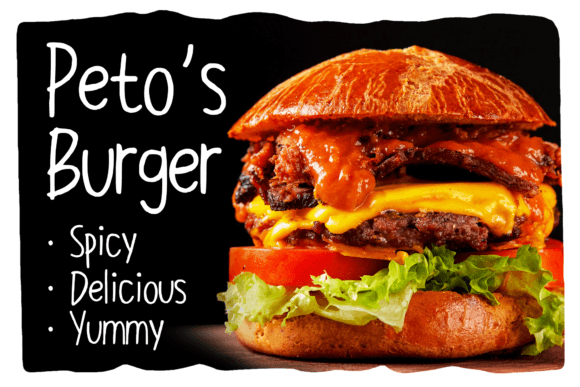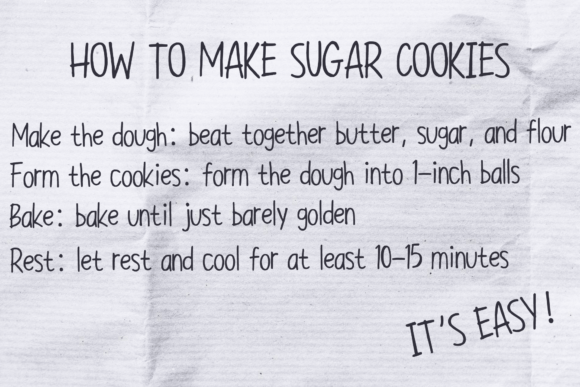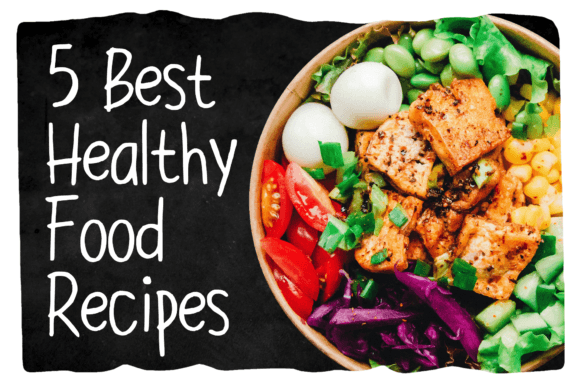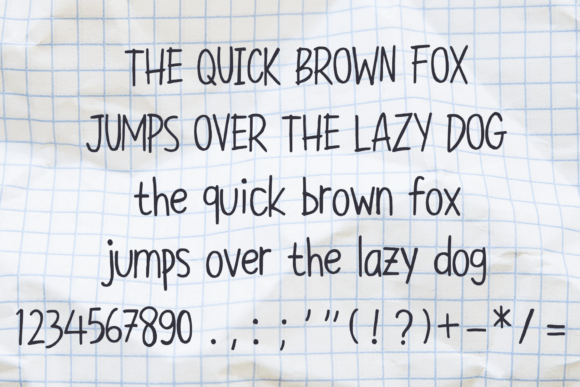
Introduction to Pencil Note Font
Remember that moment when you were brainstorming ideas for your next creative project and suddenly, a burst of inspiration struck? You grabbed a marker and started sketching out your vision, the lines flowing effortlessly onto the page. That’s the magic of creating with a personal touch, and it’s exactly what the Pencil Note Font brings to your digital designs.
As a designer, you’re always on the lookout for that special something that sets your work apart. The Pencil Note Font is a game-changer, offering a unique, handwritten style that’s perfect for adding a personal flair to your designs. With its versatility and high-quality aesthetic, this font is a valuable resource for any creative project, whether you’re working on a logo, magazine cover, or even a sticker.
Pencil Note Font
- Unique, handwritten design with a high-quality feel, ideal for creative projects and design resources.
Honest Review: Pencil Note Font
As a designer, I’m always on the lookout for high-quality design resources to enhance my creative projects. Recently, I came across the Pencil Note Font, and I was excited to give it a try.
First, the good stuff: I love the whimsical, hand-drawn feel of the Pencil Note Font. It’s perfect for adding a touch of personality to a design. The font is also highly customizable, with a range of styles and weights to choose from. The transparent background option is a nice touch, too – it makes it easy to layer the font over other design elements. ✨
Now, the not-so-good stuff: I did encounter some issues with the font’s consistency. At times, the lines and strokes seemed a bit uneven, which can be distracting. Additionally, the font may not be suitable for all types of projects – it’s definitely more suited to creative, casual designs rather than formal or professional ones. ⚠️
Overall, I’d say the Pencil Note Font is a solid choice for designers looking for a unique, high-quality font for their creative projects. Just be aware of its limitations, and use it accordingly.
- Unique, hand-drawn feel
Pencil Note Font
The Pencil Note Font is ideal for creative projects, such as:
- Designing custom invitations and cards
- Creating unique social media graphics
- Developing brand identities and logos